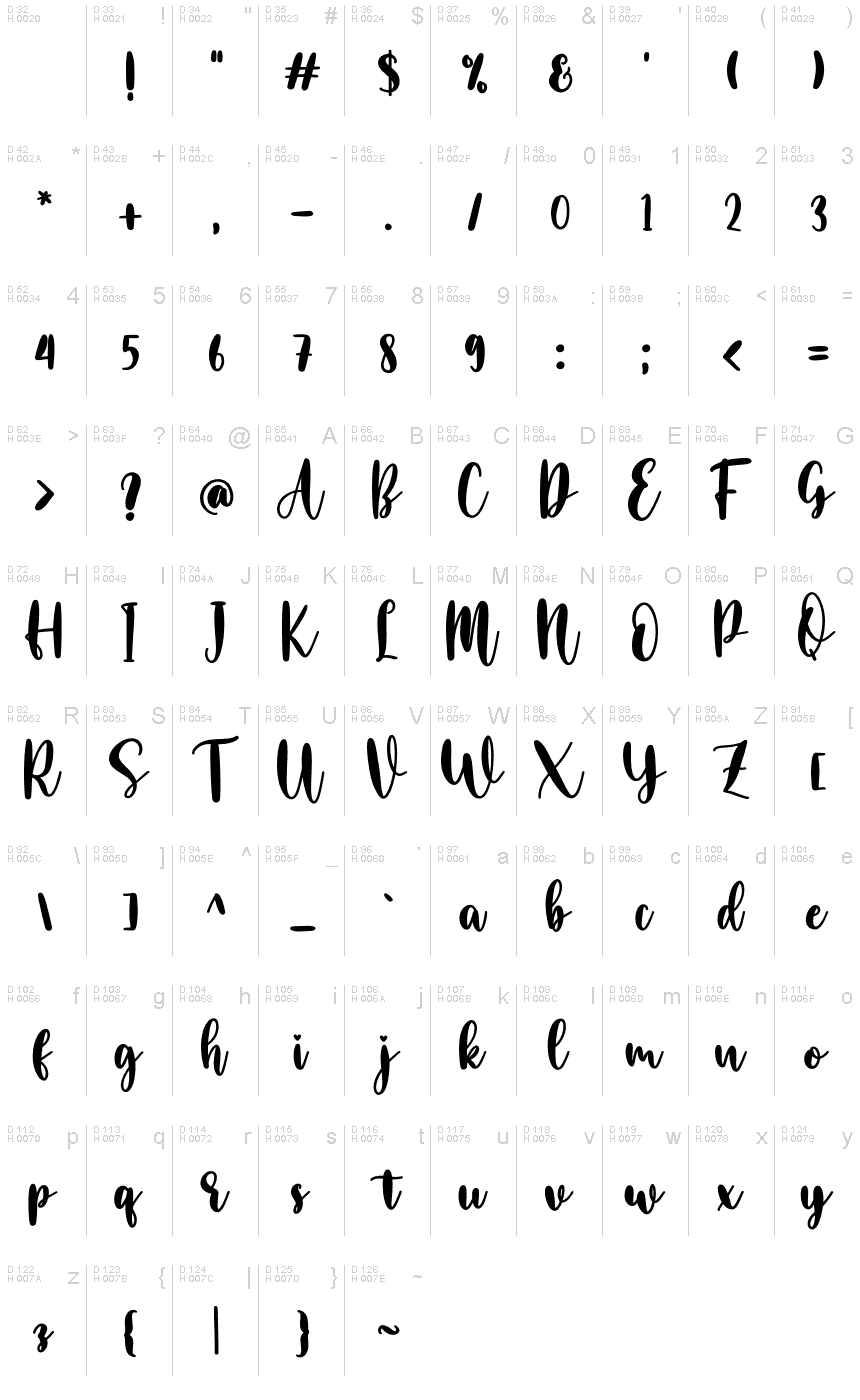
Smurs
Smurs is a bold calligraphy font designed by Bearytype that exudes elegance and sophistication. Its thick strokes and intricate curves make it perfect for projects that require a touch of luxury, such as wedding invitations, high-end branding, or restaurant menus. The bold weight of the font makes it stand out on any design, while its unique calligraphy style adds a personal touch. Whether you're creating a logo or designing packaging, Smurs is sure to impress your audience with its timeless charm. Try it out for your next project and watch as your designs come to life with this stunning typeface!